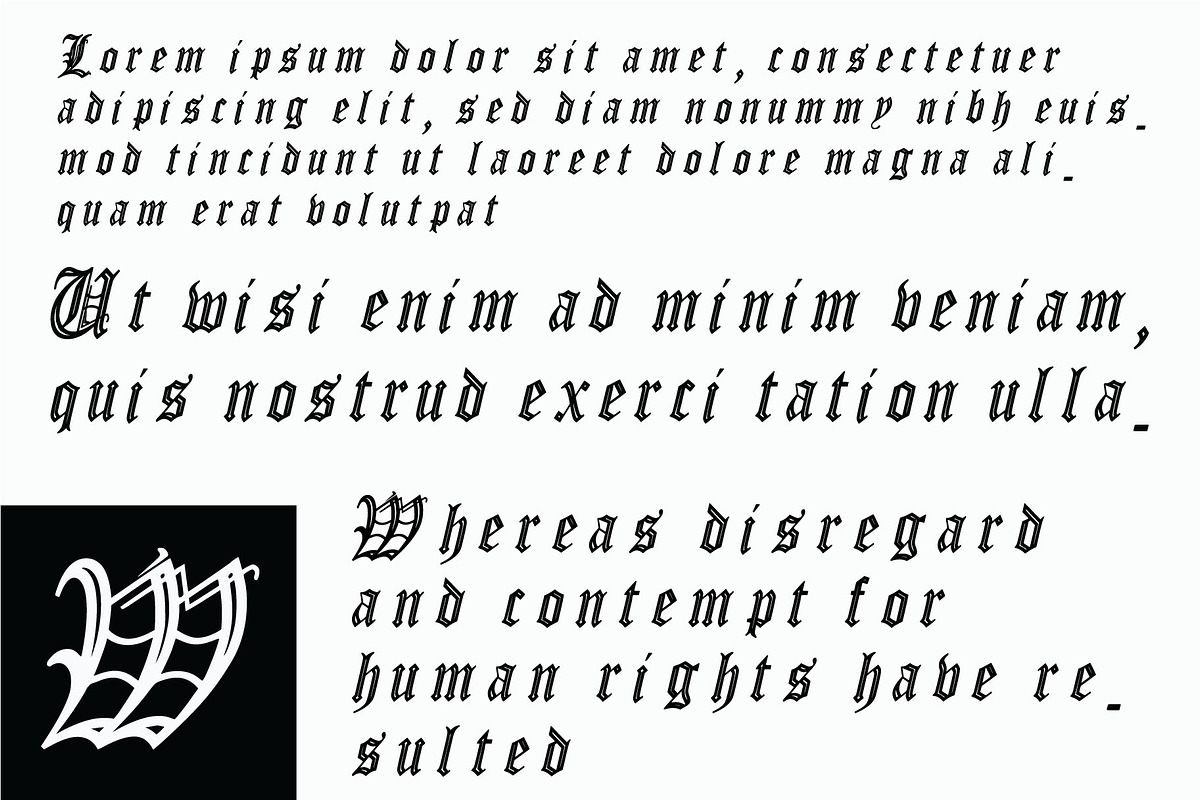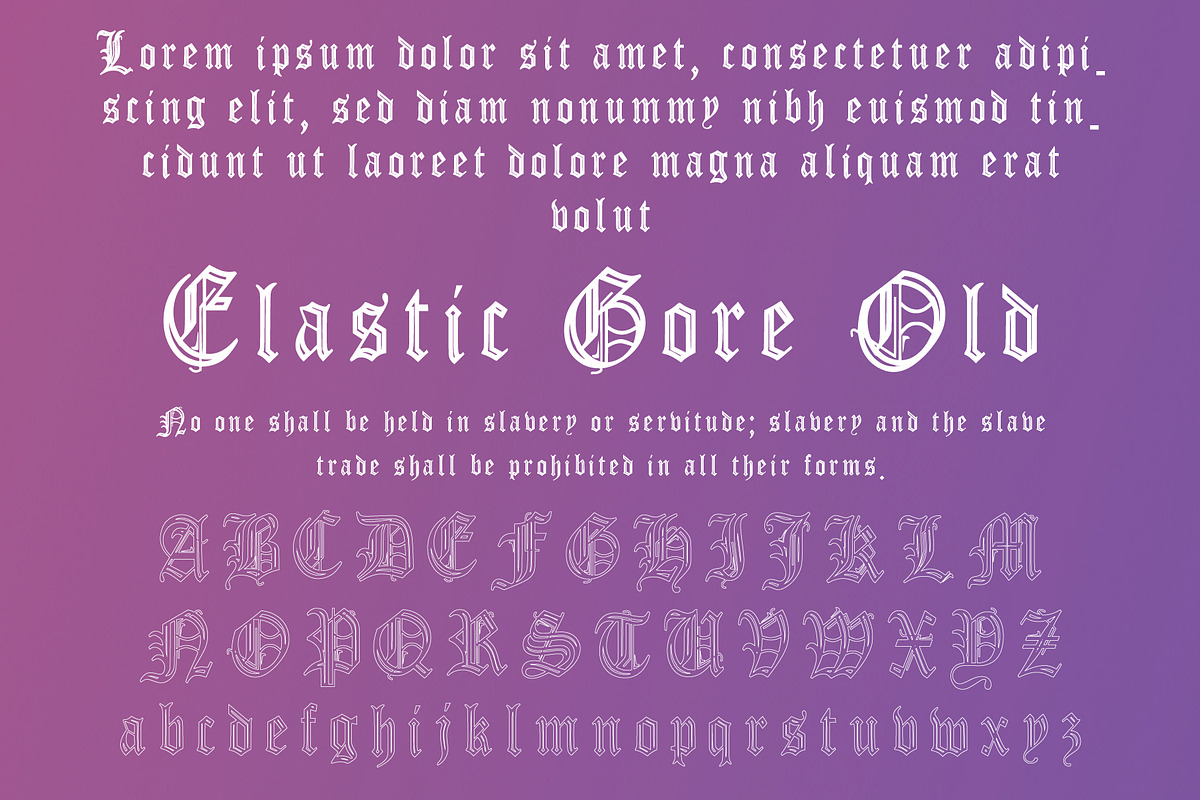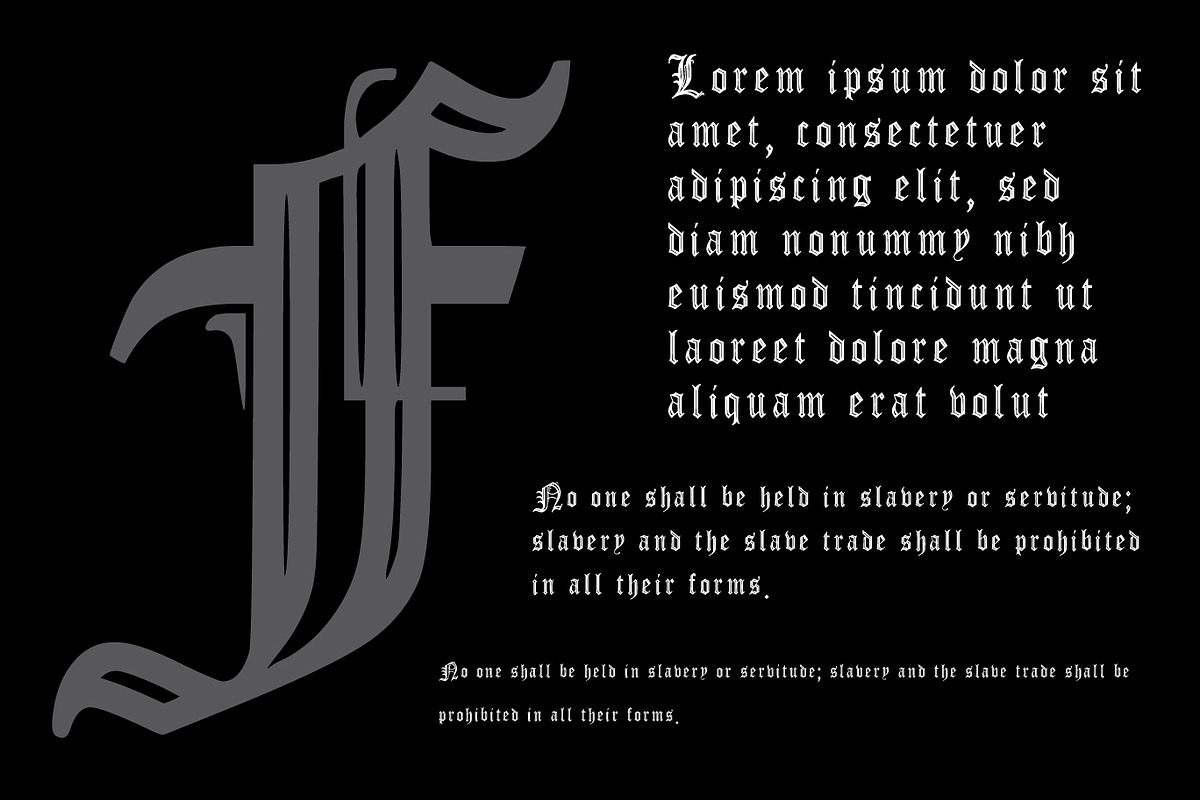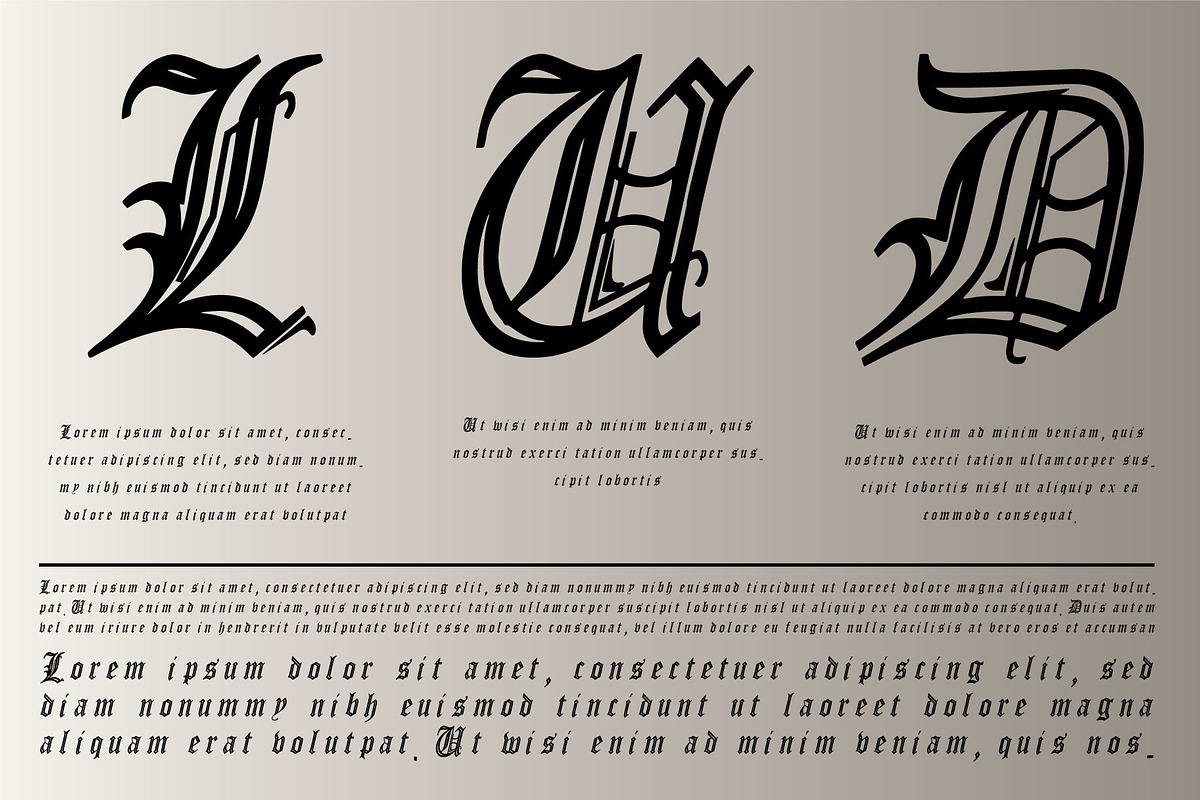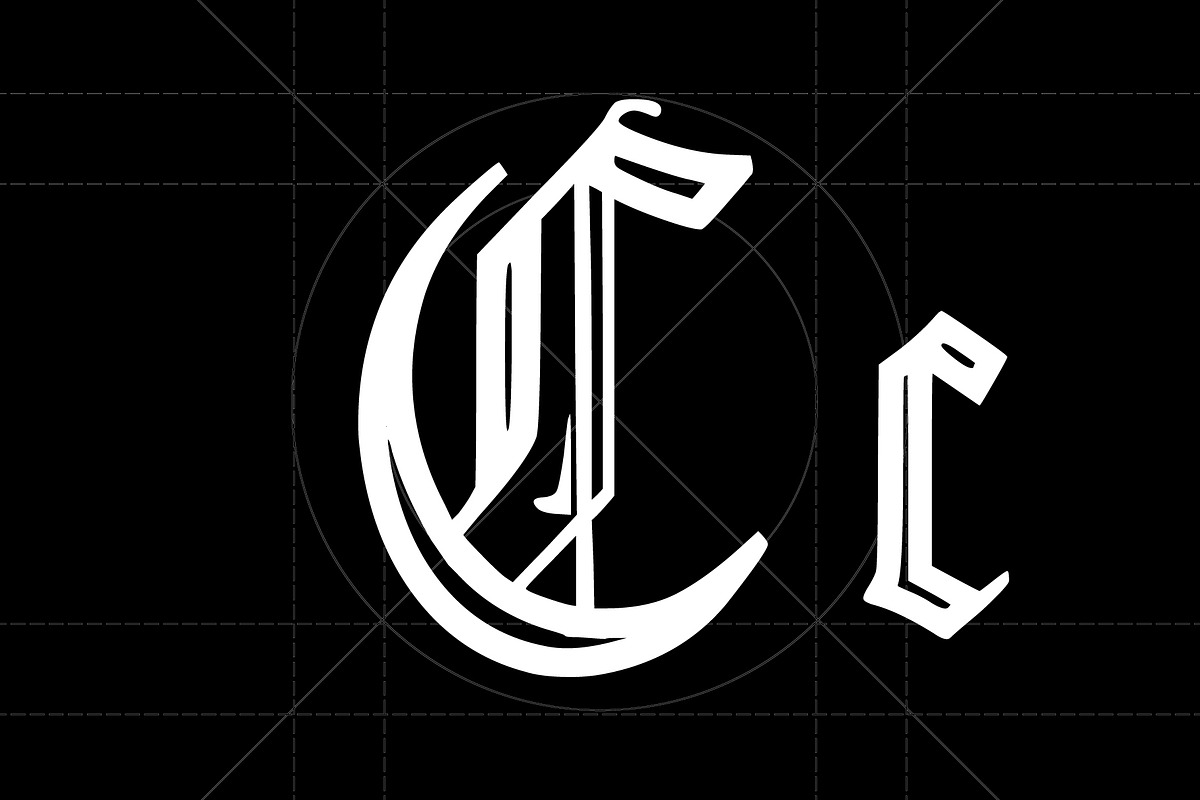
Elastic Gore Old
Elastic Gore Old New Shape
Elastic Gore Old Italic
Old English font is a medieval script that goes by several names: Gothic script, Fraktur font, Barbarian script, and Blackletter font, to name a few. This font style is reminiscent of the past and evokes an appearance of majesty and royalty. And who doesn't want to make their designs look regal